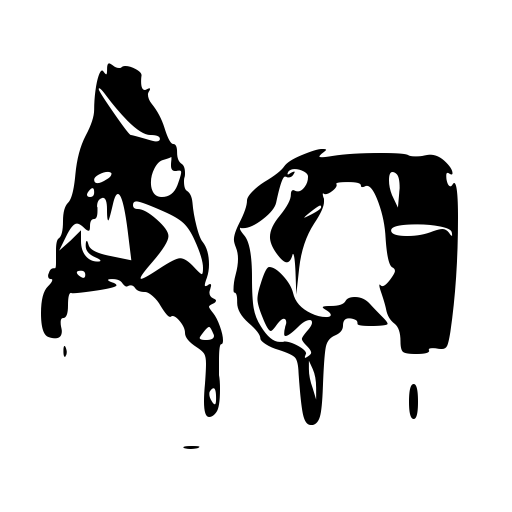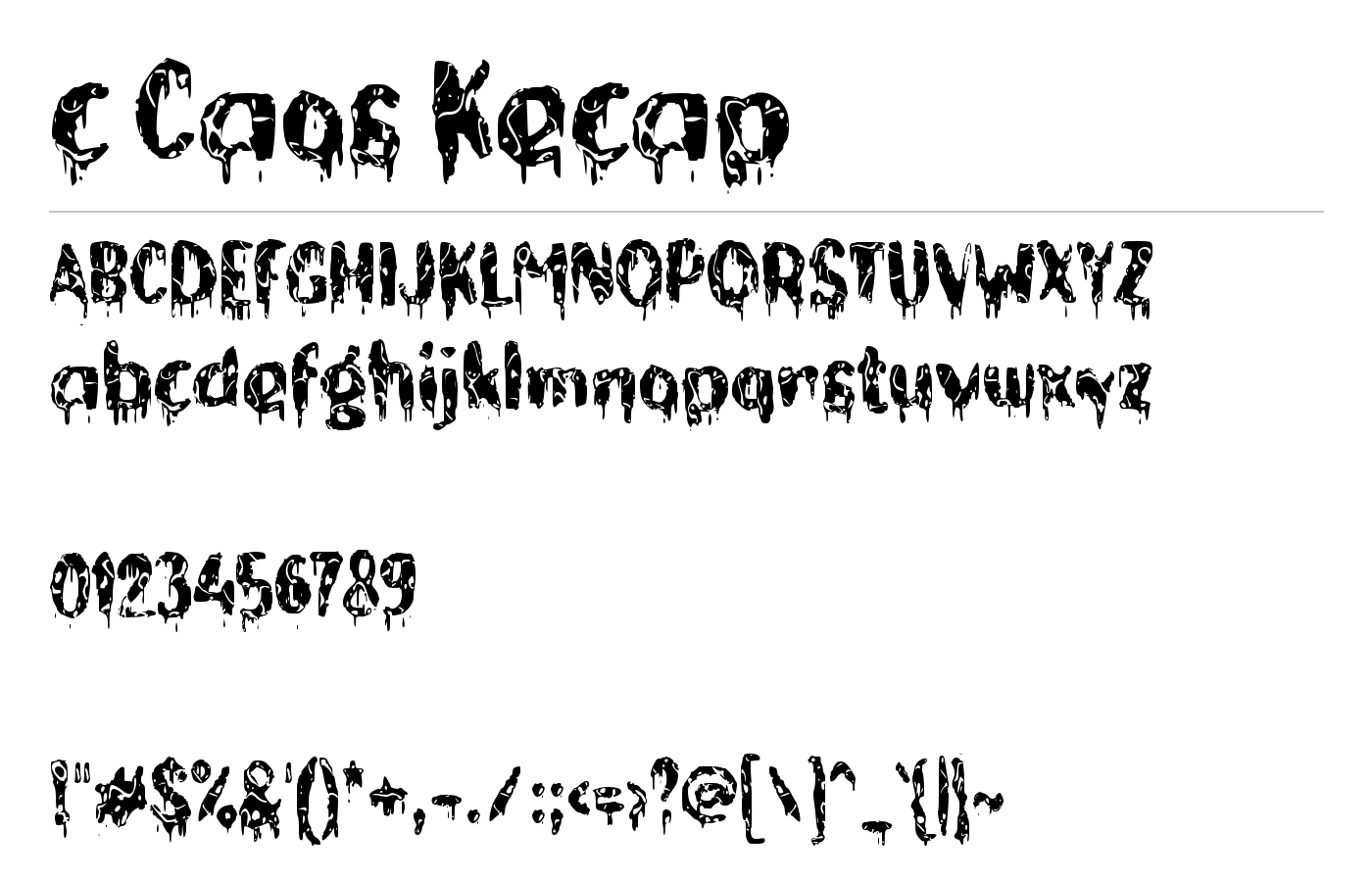
c Caos Kecap is a bold, decorative display font with a dripping, melting effect that gives it a chaotic and edgy vibe. Its irregular, rugged letterforms and dense texture make it perfect for horror themes, Halloween designs, or any project needing a striking, unconventional look. This font works best in headlines, posters, and branding where a dramatic, eye-catching style is desired.
c Caos Kecap Font
About c Caos Kecap Font